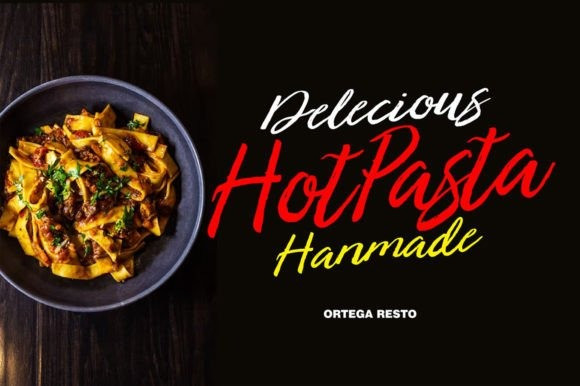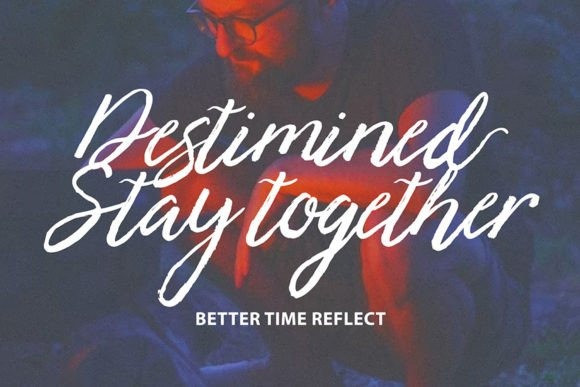
Bearded Font
Bearded Font is a modern and stylish brush script font. This typeface will enhance your craft with little effort, making your product stand out from the competition. Bearded is PUA encoded which means you can access all the glyphs and ligatures with ease!